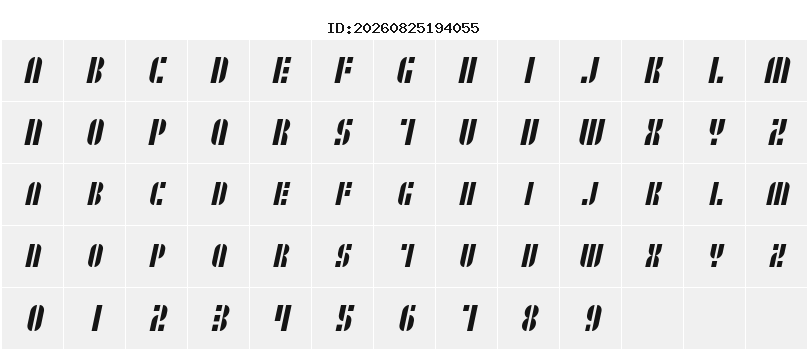
SF RetroSplice SC Condensed Preview
• Font Name: SF RetroSplice SC Condensed
• Font ID: ShyFontsTypeFoundry: SF RetroSplice SC Condensed: 2001
• Full Font Name: SF RetroSplice SC Condensed
• PostScript Name: SFRetroSpliceSCCondensed
• Character Count: 197
• Designer: ShyFonts Type Foundry
• Description: SF RetroSplice SC Condensed is a trademark of the ShyFonts Type Foundry.
About SF RetroSplice SC Condensed.ttf
SF RetroSplice SC Condensed.ttf is a modern, elegant sans-serif font designed for ultimate readability and visual harmony. Perfect for branding, headlines, web design, and print materials.